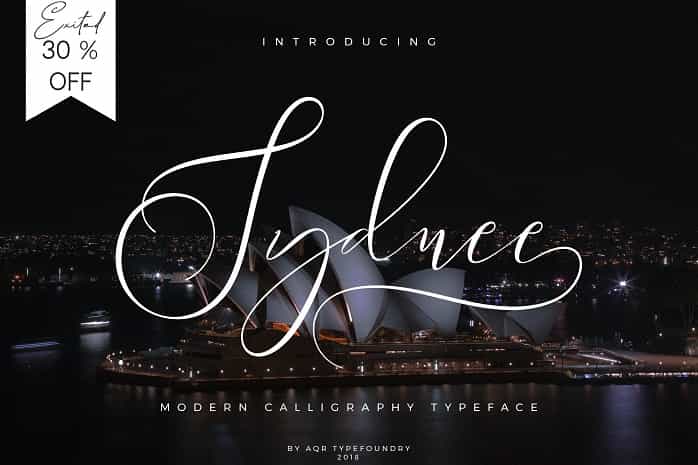
Introducing Sydnee Font. Sydnee Fonts is made with love, this font fits perfectly for weddings, birthdays, cosmetics products and fashion as well as any other designs you want. Sydnee Script Fonts has over 600 + of glyph, and it also has 17 stylistic sets that give you a very wide range to choose your design from.